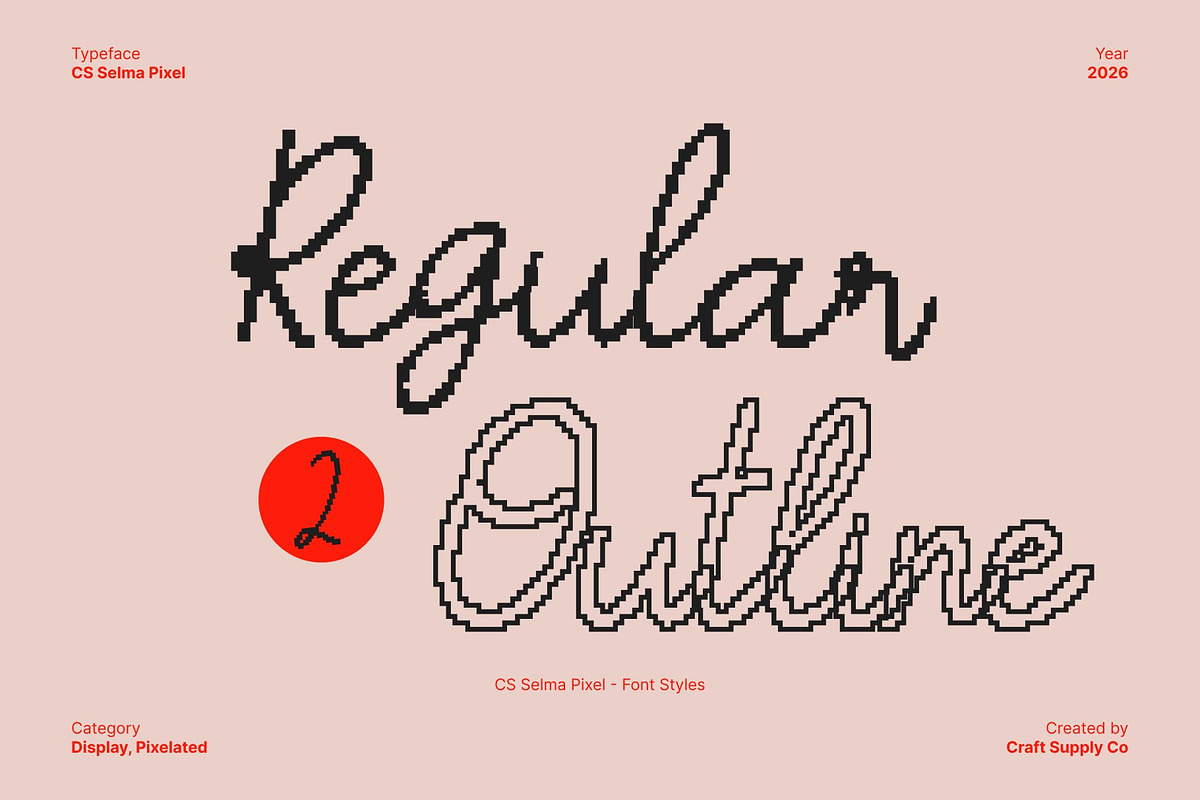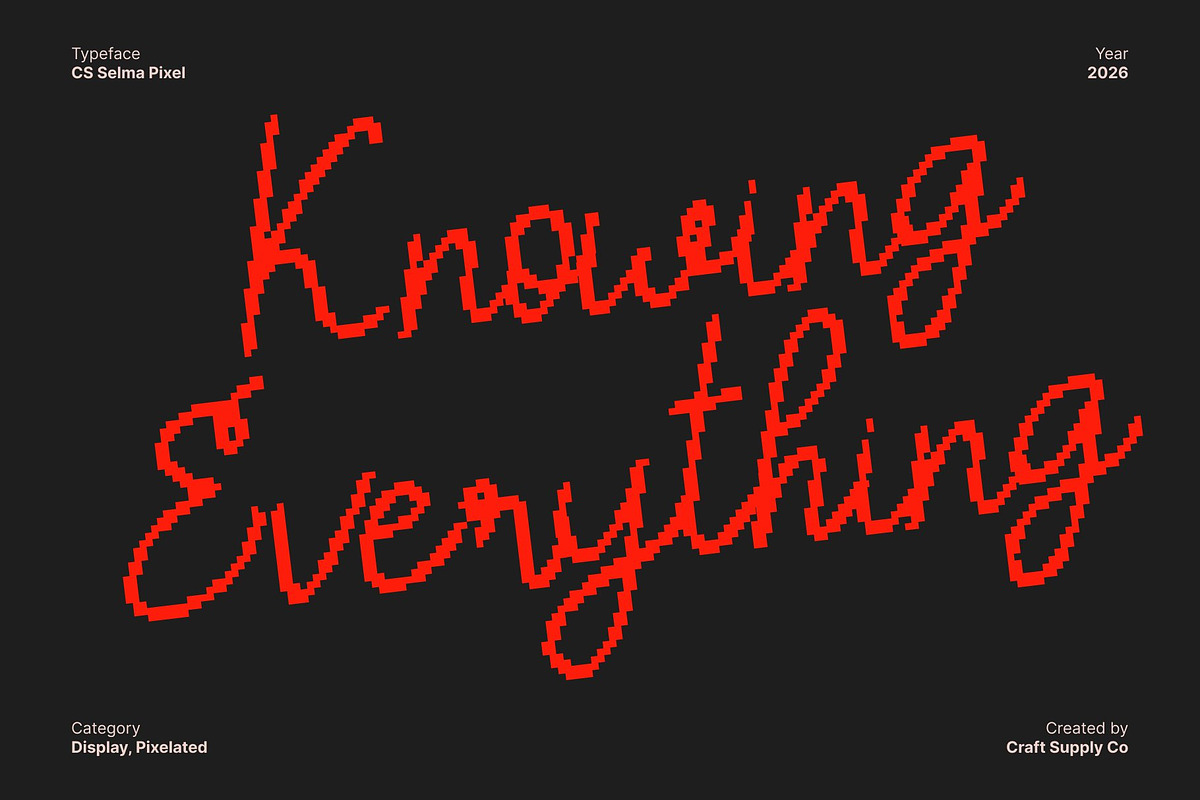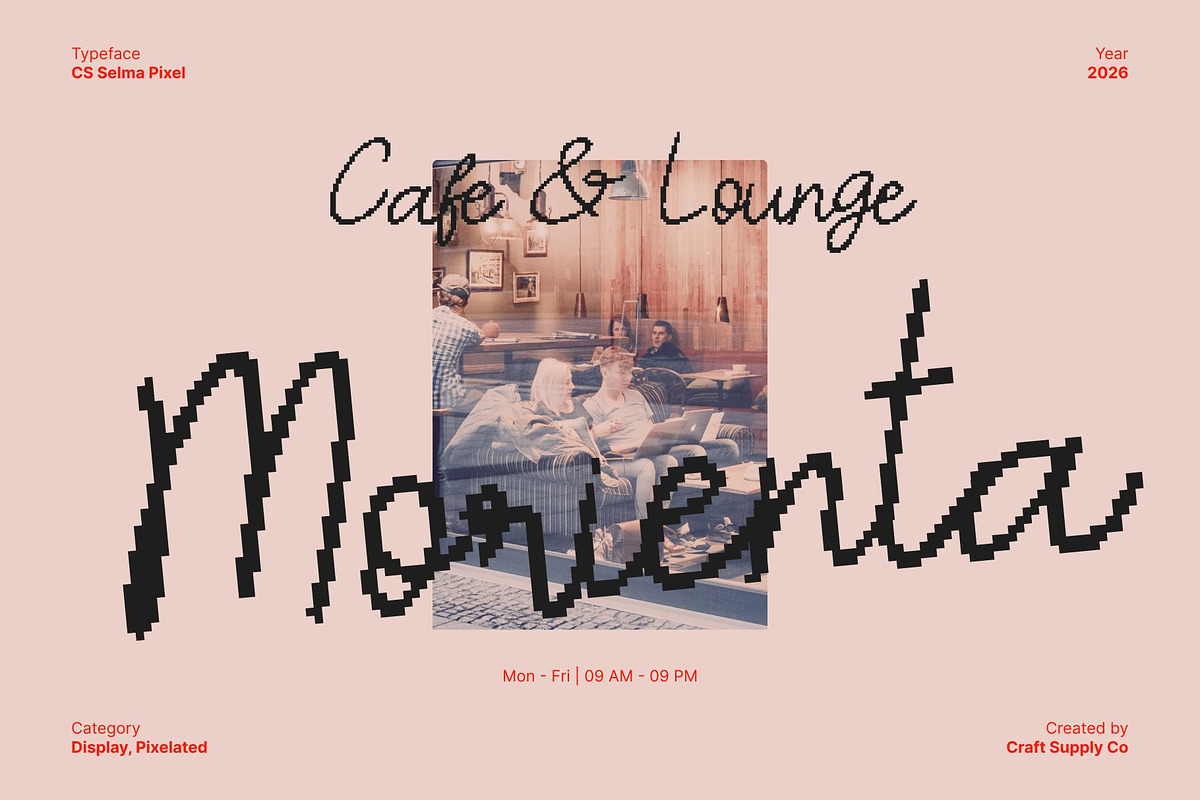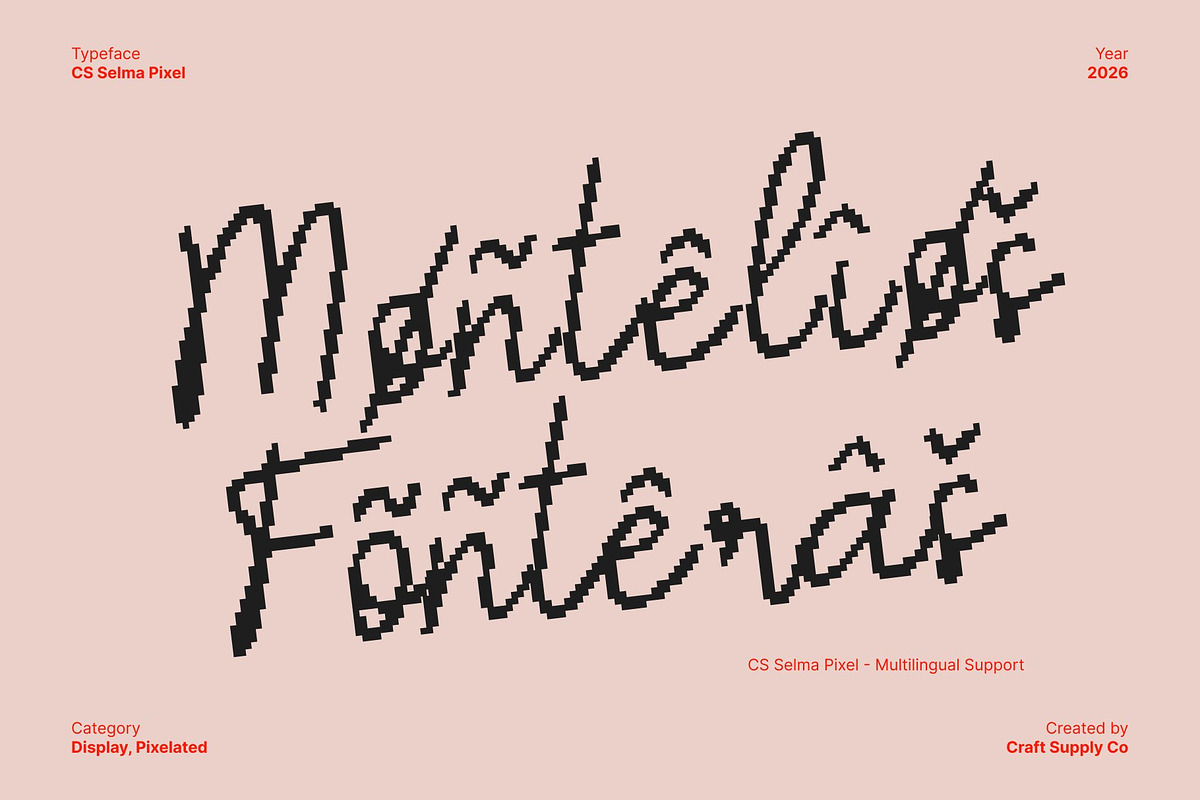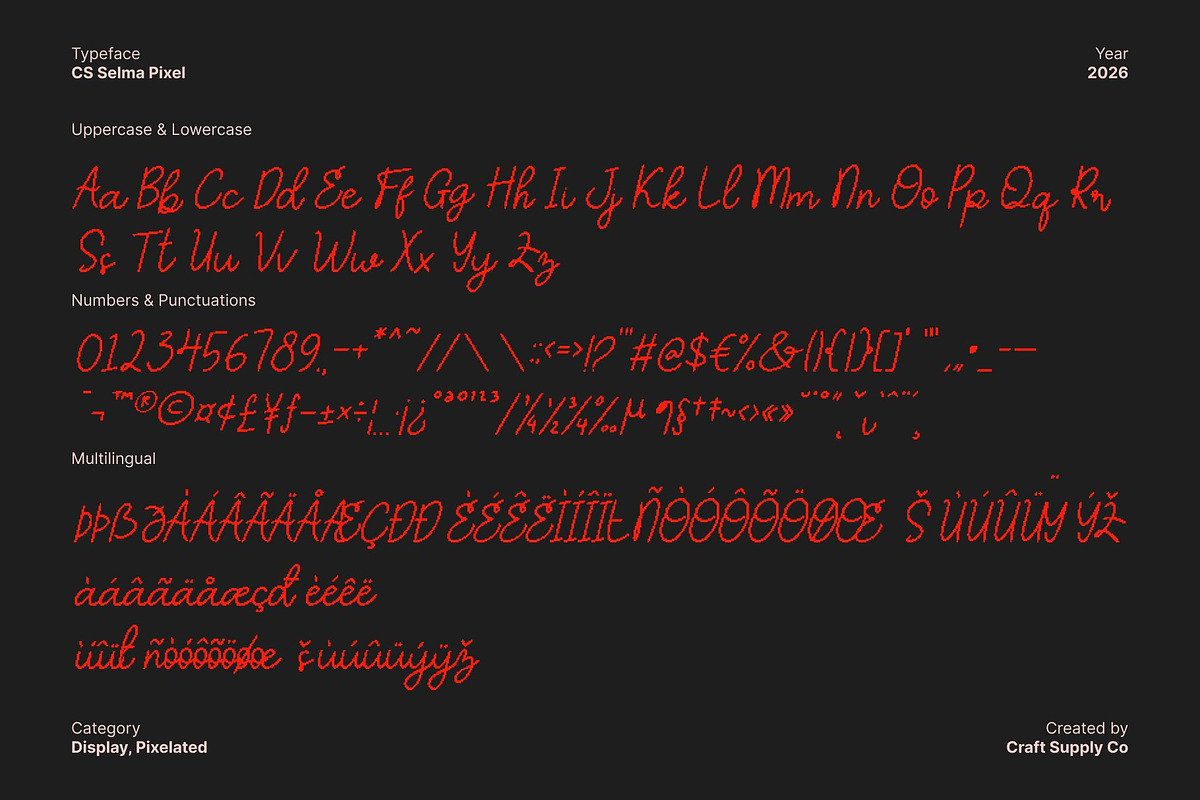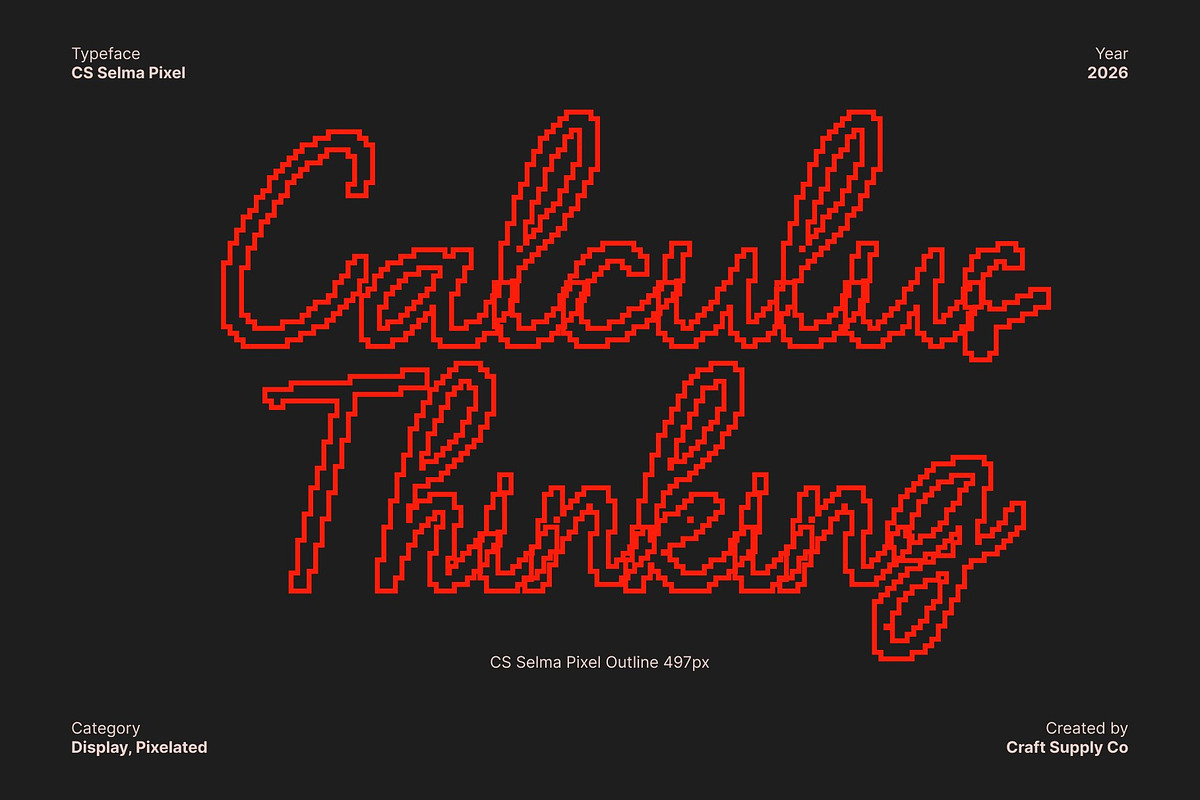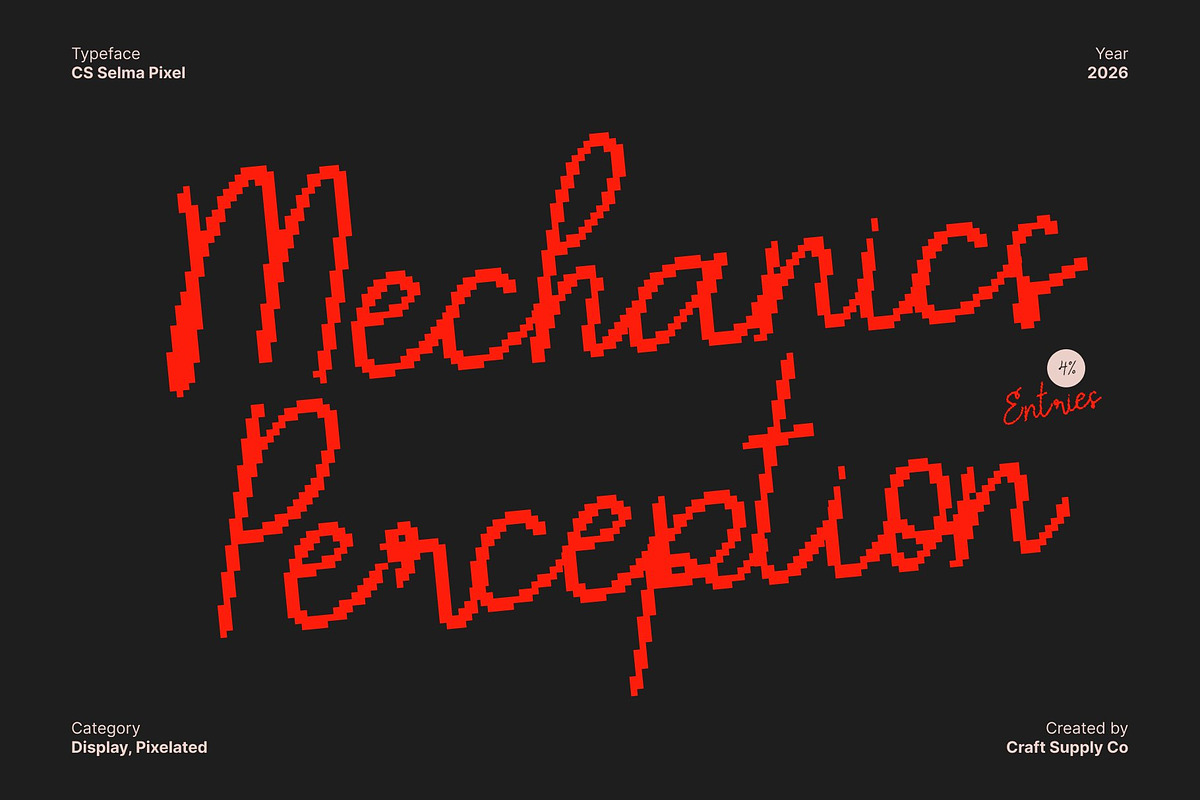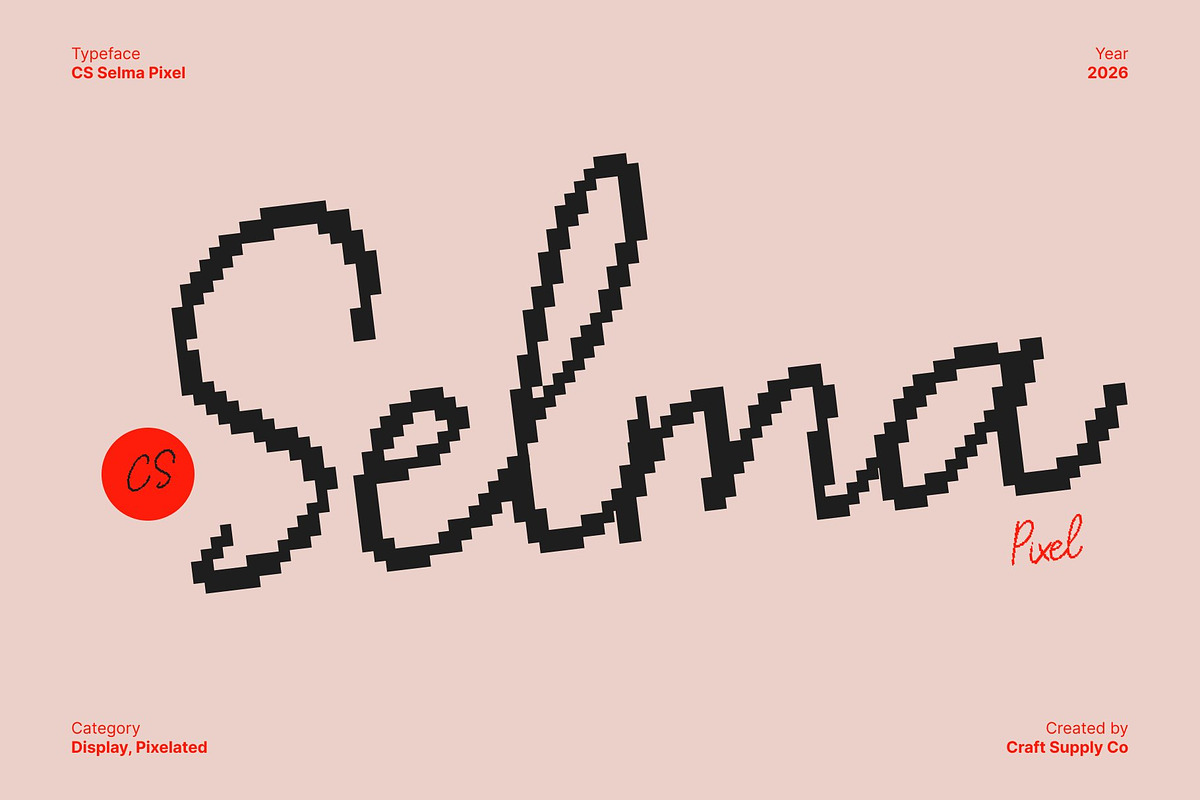
CS Selma Pixel
CS Selma Pixel – Digital Elegance with Retro Grace
Flowing Script Reimagined in Pixel Form This transforms timeless calligraphic beauty into a structured pixel-crafted script. Its graceful curves are carefully translated into crisp square forms, preserving the romantic flow of handwriting while introducing a bold digital identity. The result is a unique fusion of softness and structure where elegant movement meets the precision of a pixel grid.
Refined Pixel Details with Vintage Screen Charm Every stroke is reconstructed with intentional pixel edges, creating a nostalgic aesthetic reminiscent of early computer displays and classic 8-bit graphics. Despite its digital framework, the script maintains its smooth rhythm and balanced proportions, ensuring readability while enhancing visual impact. The subtle contrast between thick and thin strokes remains, now expressed through modular pixel construction.
Romantic Sophistication with a Tech Twist This font blends luxurious script elegance with old-school technological charm. It evokes the feeling of beautifully rendered lettering on vintage monitors, arcade screens, and retro digital interfaces. This distinctive combination makes it both eye-catching and emotionally engaging perfect for designers who want elegance with a creative digital edge.
- CS Selma Pixel Regular
- CS Selma Pixel Outline